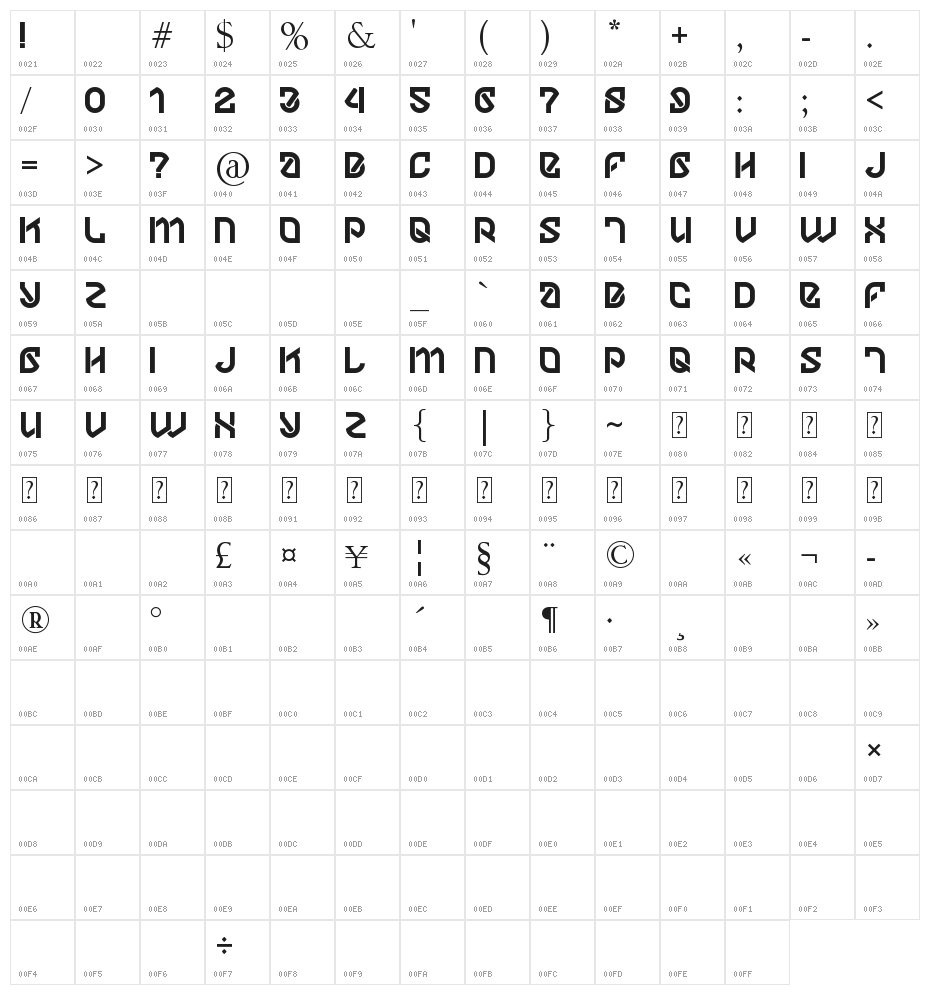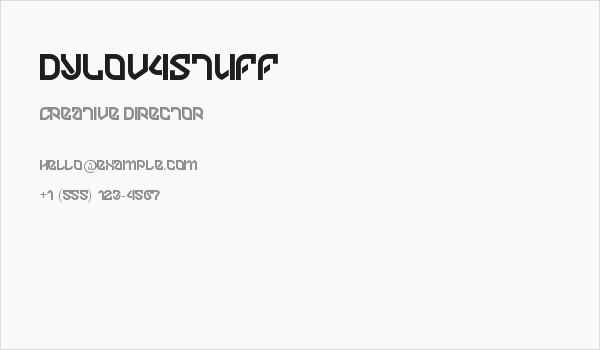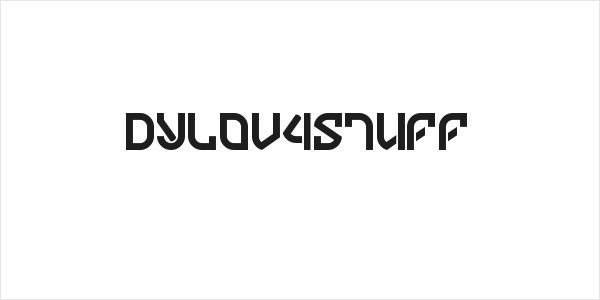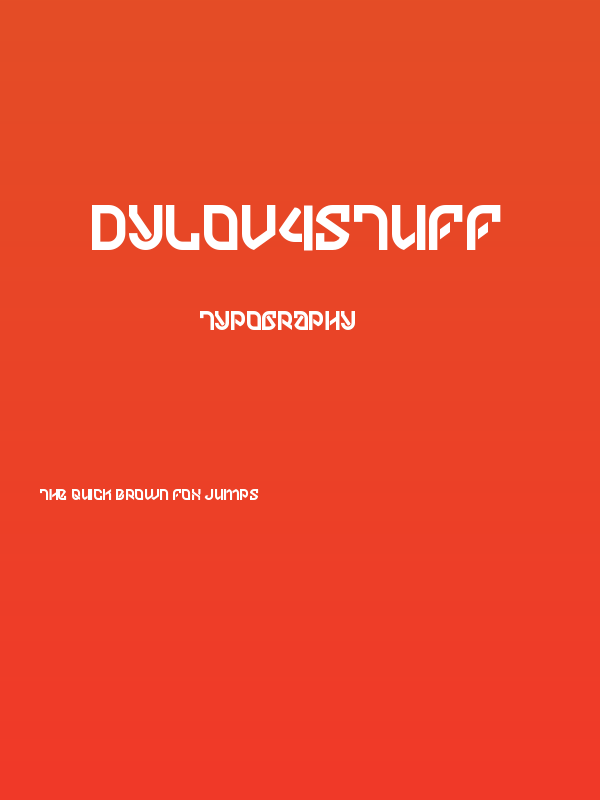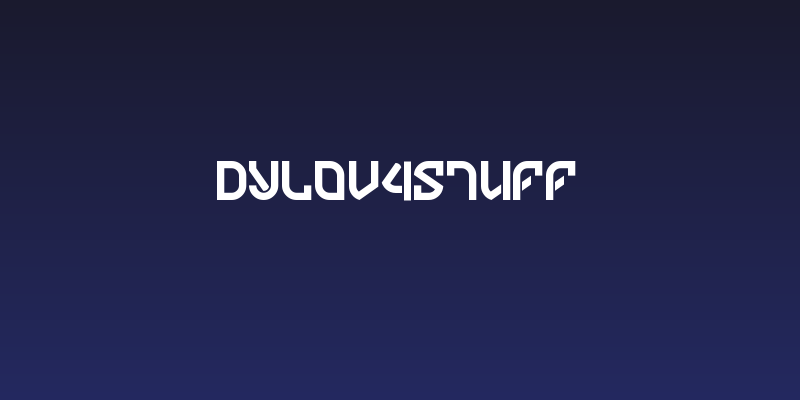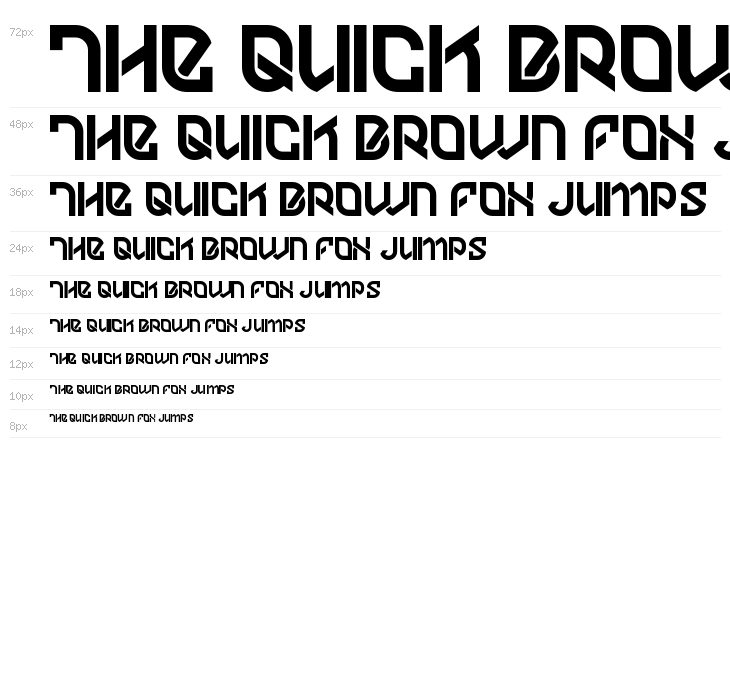
DYLOV4STUFF Font
DYLOV4STUFF Description
This font features a bold, geometric design with a futuristic and modern aesthetic. The characters are constructed with sharp angles and clean lines, giving it a distinct and edgy appearance. The uppercase and lowercase letters maintain a consistent style, with a unique approach to curves and terminals that adds to its dynamic look. The numerals and special characters follow the same design principles, ensuring a cohesive visual identity across all glyphs. This font is ideal for projects that require a strong, contemporary feel.
| Proposed Projects | Ideal for branding, posters, album covers, and tech-related designs. |